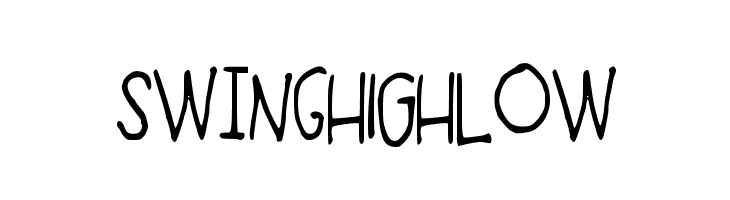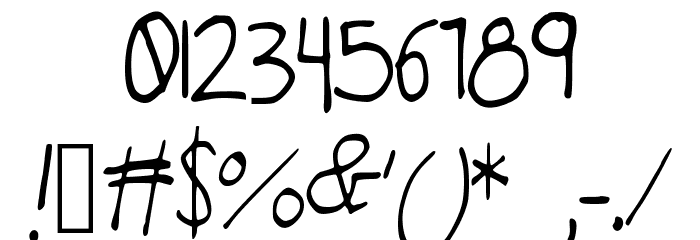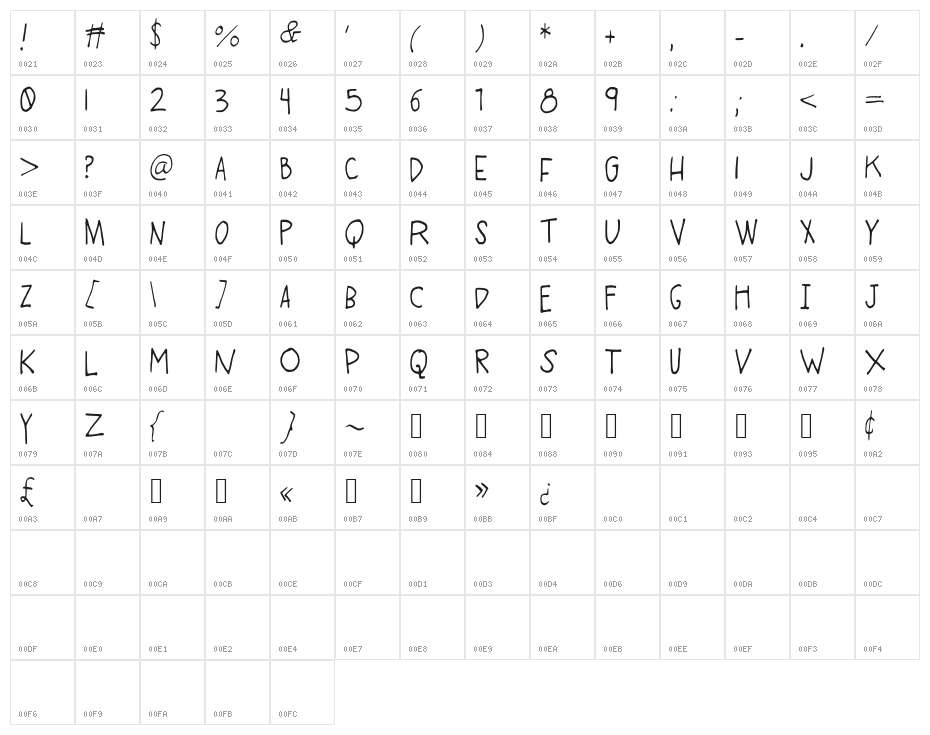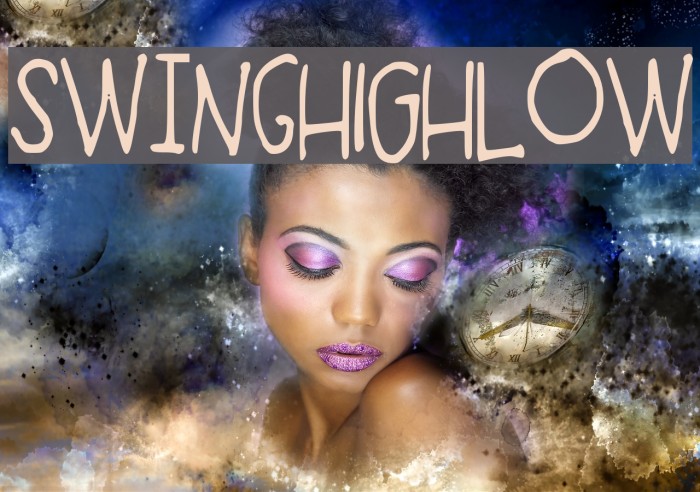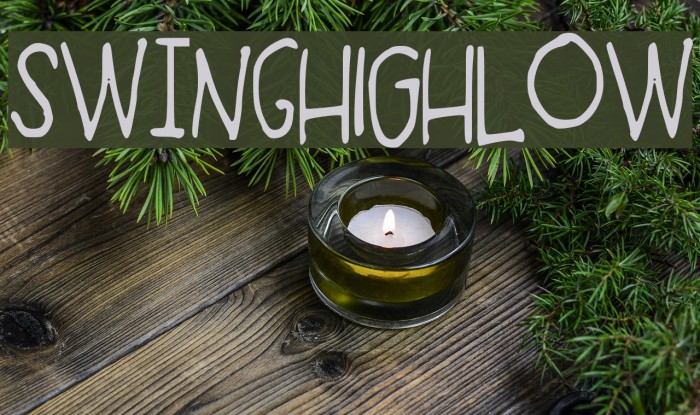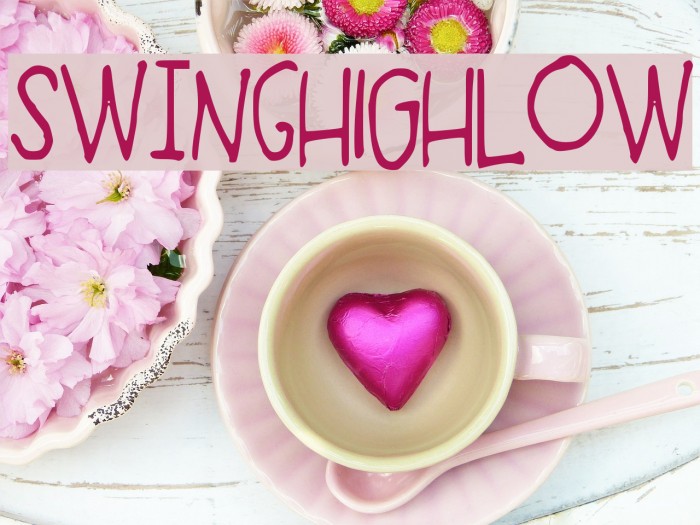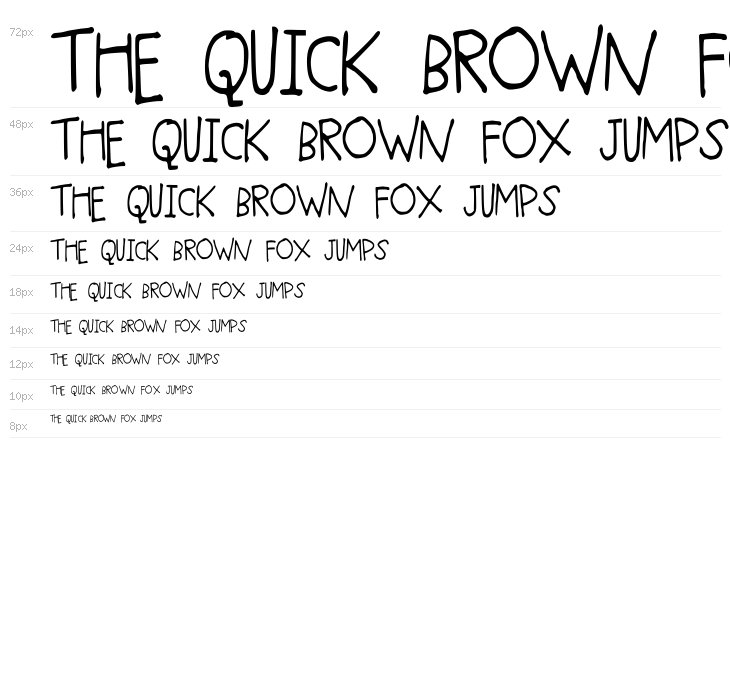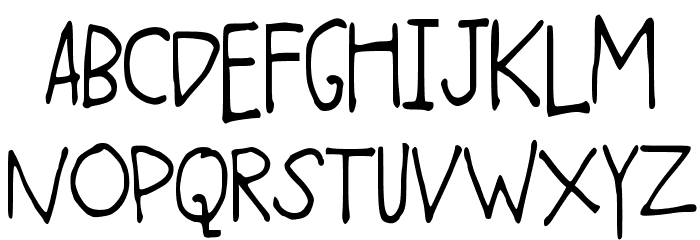
SWiNgHIGHloW Font
SWiNgHIGHloW Description
This font features a playful and casual handwritten style, characterized by its irregular and slightly uneven strokes. The letters are tall and narrow, with a whimsical touch that gives them a lively and informal appearance. The uppercase and lowercase letters maintain a consistent style, while the numbers and special characters blend seamlessly with the overall design. The font's organic flow and unique character shapes make it ideal for projects that require a personal and approachable feel.
| Proposed Projects | Ideal for greeting cards, children's books, casual branding, and social media graphics. |